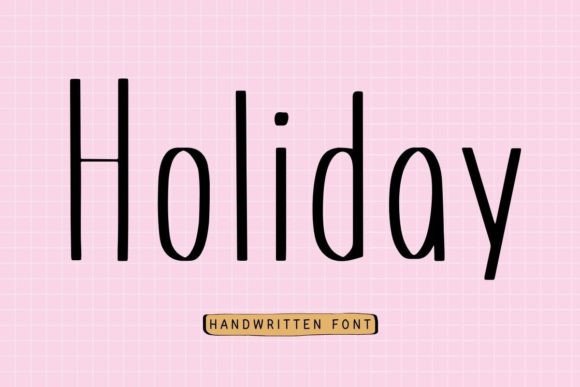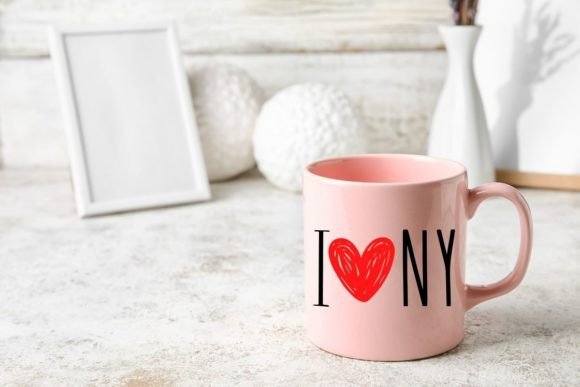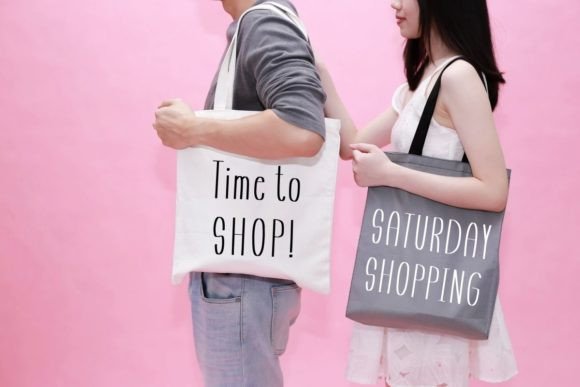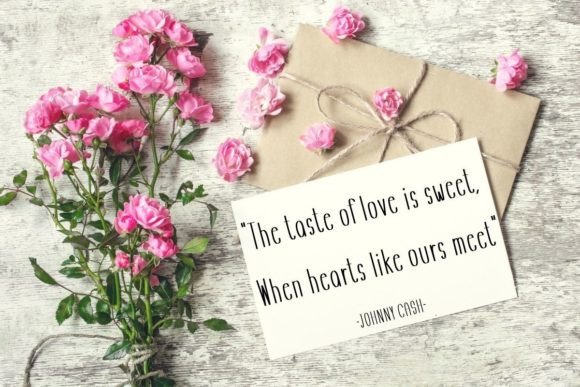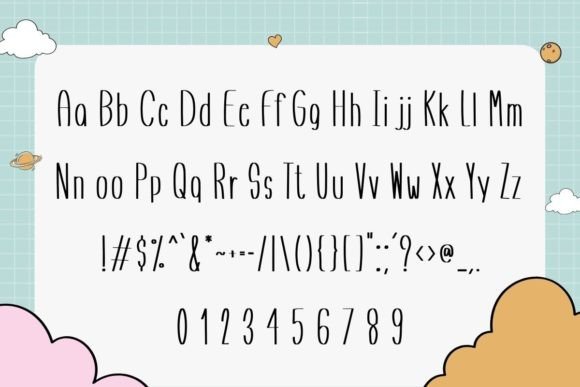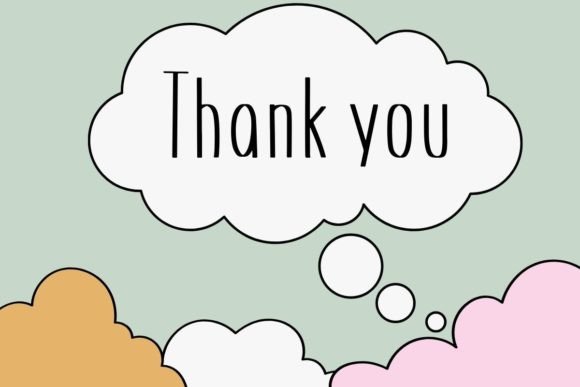
Holiday Font
Bring Casual Charm with Holiday Font
Holiday Font is a classic handwritten script that adds a relaxed and friendly feel to your designs. Its natural strokes and simple style make it a versatile font for a wide range of creative projects. Whether you’re designing greeting cards, kids’ crafts, or casual invitations, Holiday Font brings warmth and personality to your work.
This font captures the beauty of authentic handwriting, making every project feel personal and approachable.
Versatile Applications of Holiday Font
Holiday Font fits seamlessly into various creative uses, including:
• Kids’ crafts and DIY projects
• Casual invitations and party announcements
• Social media graphics and posts
• Handmade product labels and packaging
• Posters, flyers, and promotional materials
Its classic handwritten style ensures your text looks friendly and inviting, suitable for both personal and informal professional projects.
The balanced kerning and clear letter spacing provide good readability at various sizes, making HolidayFont perfect for both headlines and body text.
Why Choose Holiday Font?
Designers and hobbyists alike appreciate HolidayFont for its classic, easygoing style. It adds a casual, handcrafted touch that makes your projects feel warm and genuine. Whether you are creating cards for loved ones or playful designs for kids, Holiday Font offers a simple yet charming solution.
Use HolidayFont to give your next project a friendly and authentic handwritten look.